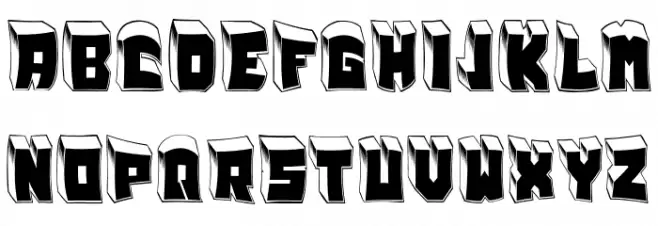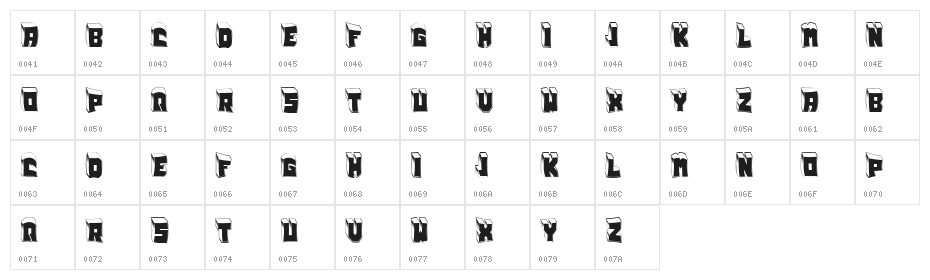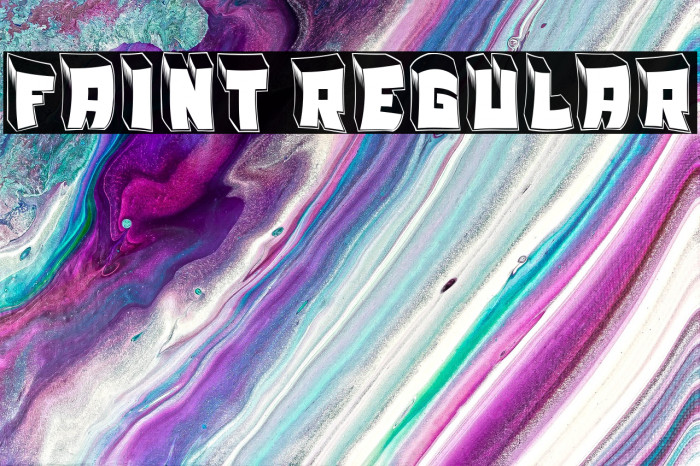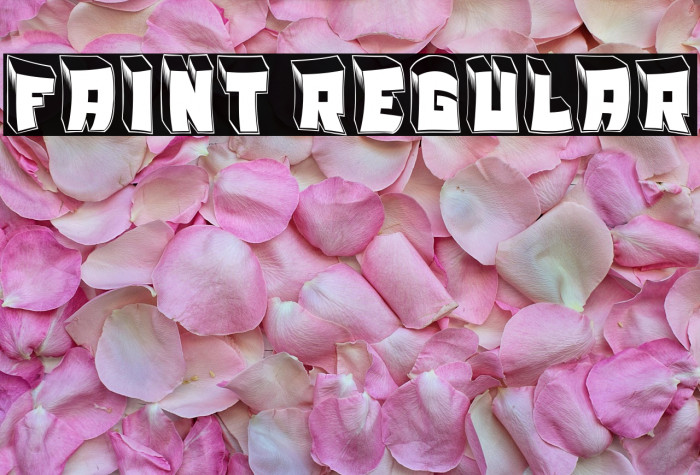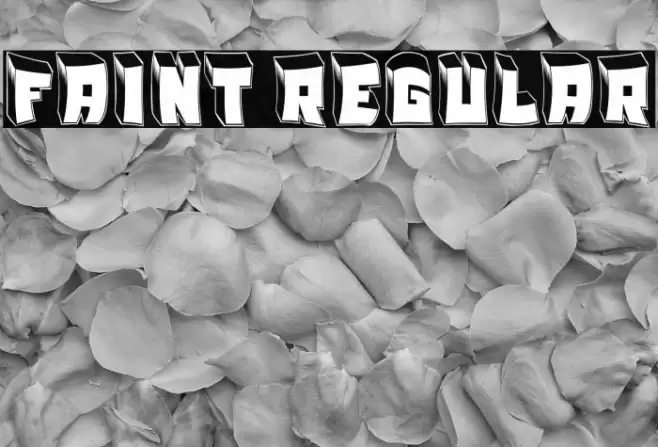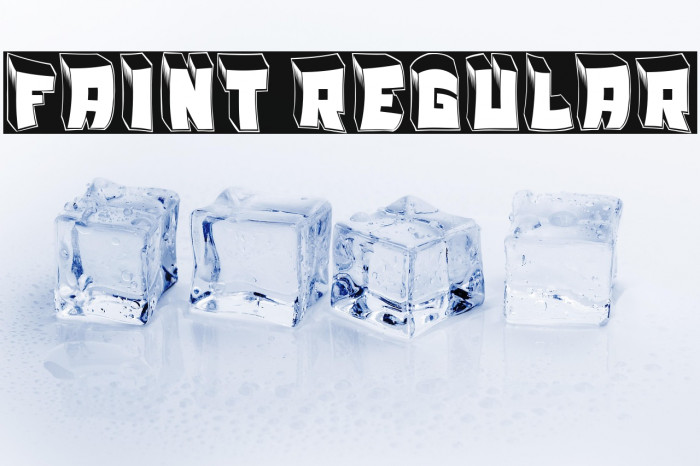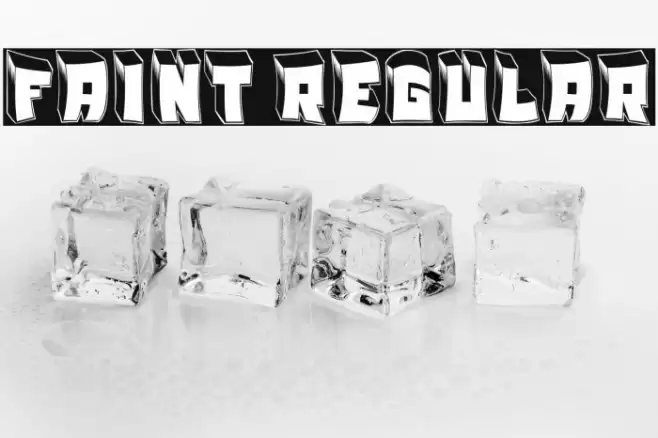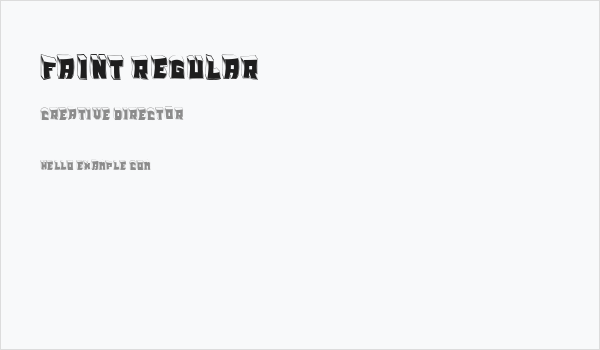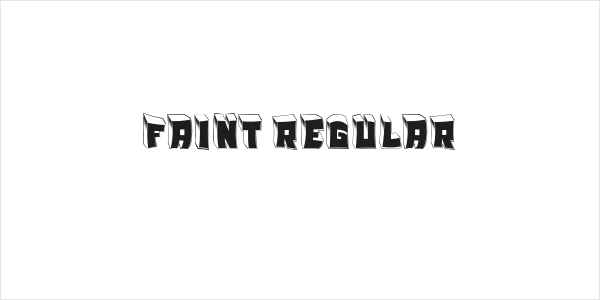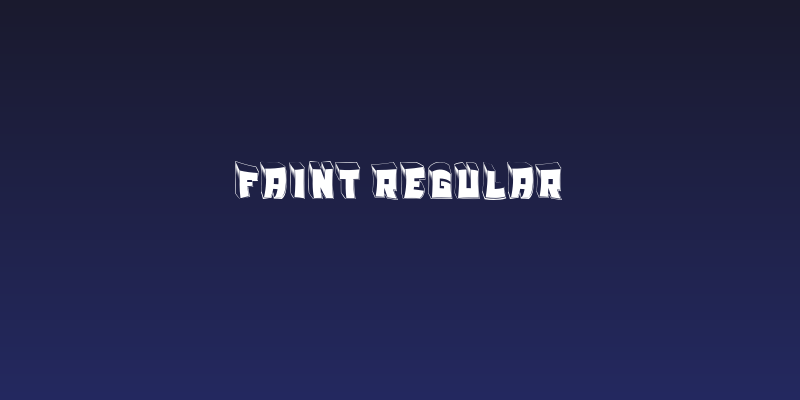
Faint Regular Font
Faint Regular Description
This font features a bold, three-dimensional style with a strong shadow effect, giving it a striking and dynamic appearance. The characters are blocky and angular, with a distinct geometric influence that adds to its boldness. The shadowing creates a sense of depth, making the letters appear as if they are popping off the page. This style is reminiscent of graffiti or urban art, with a playful yet assertive presence. The font is highly decorative, making it ideal for attention-grabbing designs. Its unique style is perfect for projects that require a strong visual impact.
| Overall Style | Modern, Urban |
| Proposed Projects | Ideal for posters, album covers, streetwear branding, and urban-themed designs. |